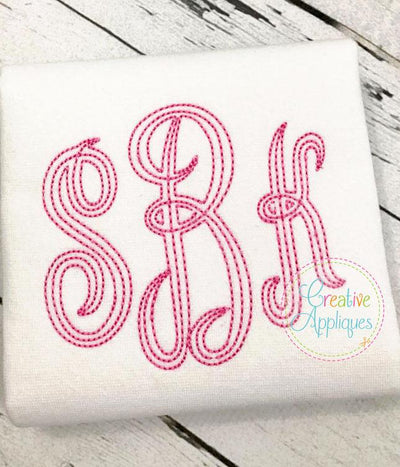
Floss Stitch Empire Monogram Embroidery Font Small
This is a very simple yet elegant, decorative floss or bean stitch type stitch circle monogram font.
2. Uppercase letters A thru Z for the left, middle, and right positions
3. 3 Frames in the floss stitching: circle, pointed square, and scallop circle